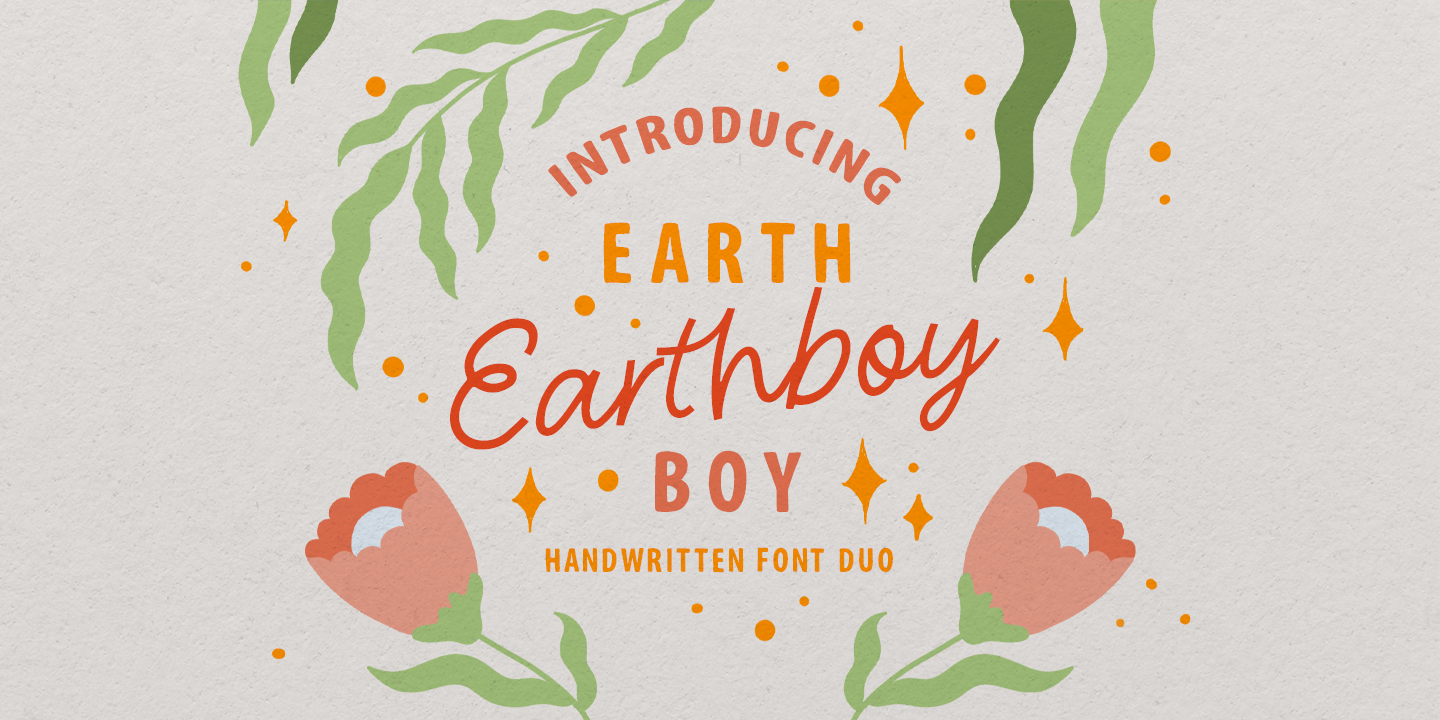
This organic font is perfect for environmental organizations, sustainable product branding, outdoor adventure companies, eco-friendly packaging, nature-based wellness brands, organic food labels, earth-conscious marketing campaigns, and natural lifestyle promotions. Its grounded character makes it ideal for projects requiring environmental authenticity and connection to nature.
Earthboy Font is exciting because it embodies the spirit of environmental consciousness with letterforms that feel naturally grown rather than artificially constructed. The font features organic curves, earth-inspired textures, and natural irregularities that mirror the beauty of untouched wilderness and sustainable living. Its authentic environmental character communicates genuine care for the planet while maintaining the approachable warmth that resonates with eco-conscious communities.
The Earthboy Font family typically includes multiple weights with natural variations, along with earth-tone styling and organic decorative elements like leaves, branches, and nature symbols. Many versions feature alternate characters with different organic textures and special eco-themed glyphs that enhance the environmental aesthetic.
Whether you're developing sustainable brands, environmental awareness campaigns, or nature-focused lifestyle products, Earthboy Font Free Download provides authentic environmental credibility with contemporary functionality. This typeface transforms standard communications into meaningful statements that resonate with eco-conscious audiences who prioritize sustainability and natural living. Its distinctive character adds immediate environmental authenticity to any project while maintaining excellent readability, making it an invaluable resource for organizations and brands committed to Earthboy Font Free Download and creating positive environmental impact through responsible design choices.